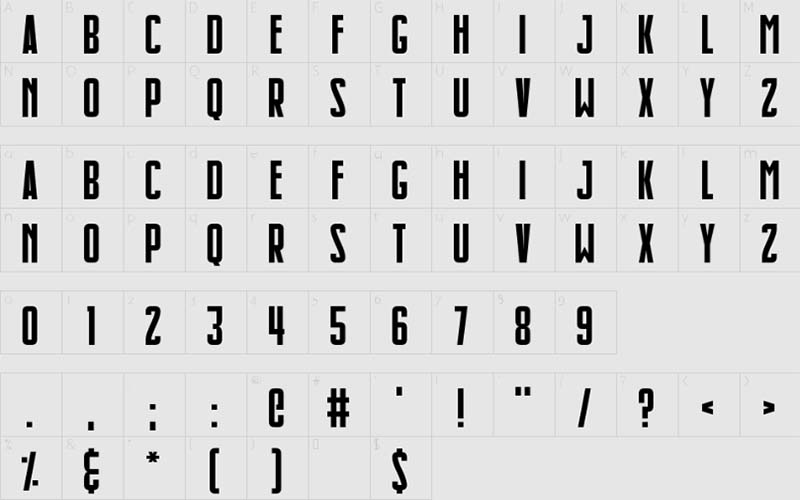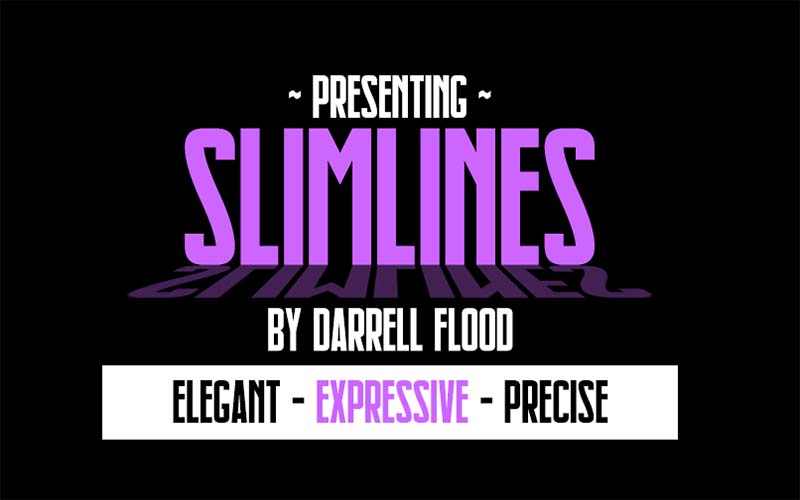
Slimlines Font is a fantastic sans serif typeface that has tall letters and a striking futuristic look. This font designer Darrell Flood took charge of designing and launching it for the first time.
This great font is designed with a solid texture and adds a techno look to the outside of the designer characters. The designer used sun serif corners and rounded corners to create each letter.
We’ve usually seen it in premium fonts. Another great aspect of this is that you can use it with other breathable serifs and serif fonts. And make headings and paragraphs easy.
Slimlines Font
But for larger designs, this basic font can be used with any other font. Because some of these characters can easily be used for bold headings while you can use another font for paragraphs.